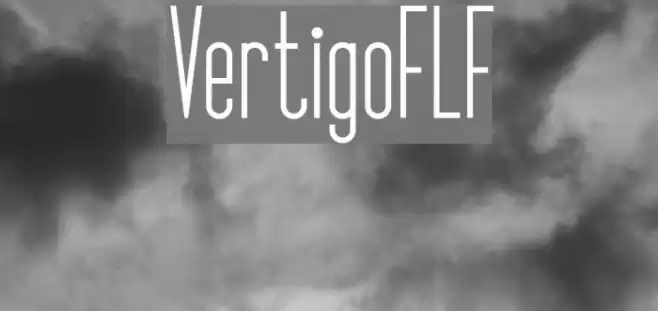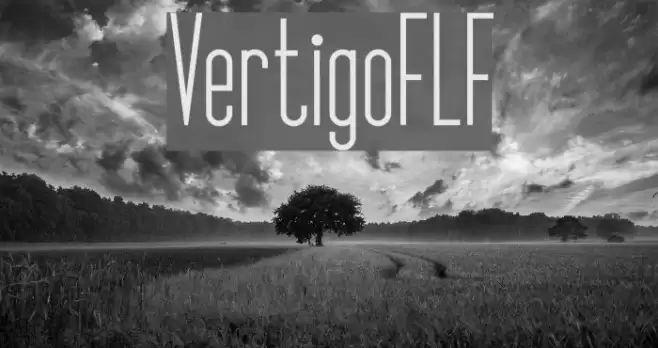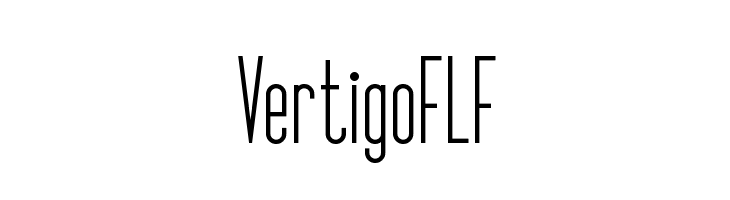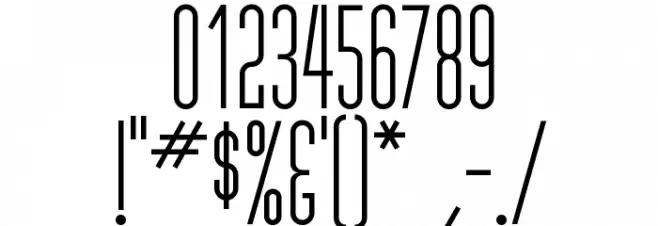
VertigoFLF Font
VertigoFLF Description
This font features a tall, narrow design with elongated letterforms that create a striking and modern appearance. The uppercase and lowercase letters maintain a consistent height, contributing to a uniform and streamlined look. The font's clean lines and minimalistic style make it highly legible, even at smaller sizes. The numerals and special characters are designed with the same attention to detail, ensuring a cohesive visual experience across all text elements. The overall aesthetic is contemporary and sophisticated, making it suitable for a variety of design applications.
A tall, narrow font with a modern and minimalistic design from Uncategorized fonts.
- Proposed Projects: Ideal for branding, editorial design, posters, and digital interfaces where a modern and sleek look is desired.